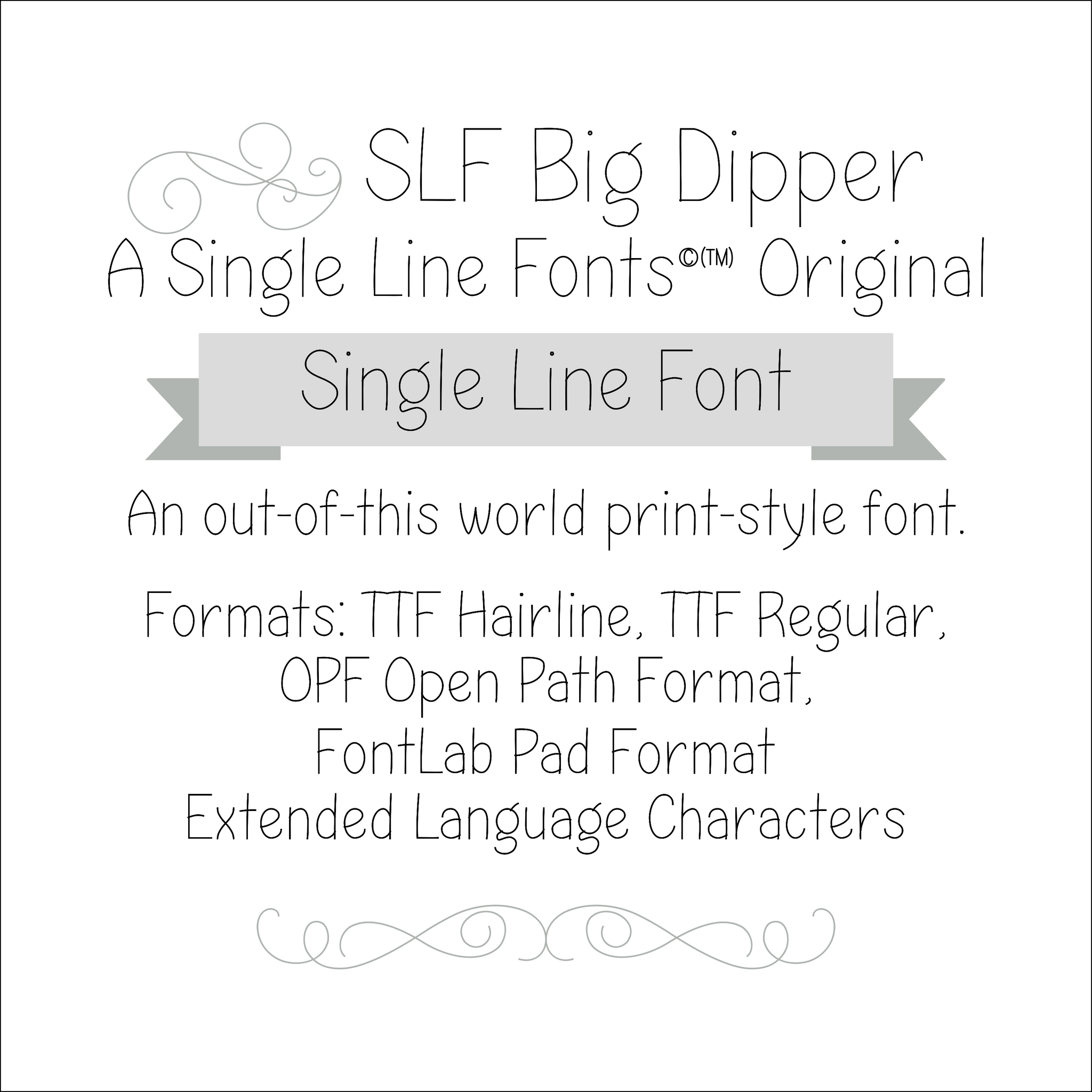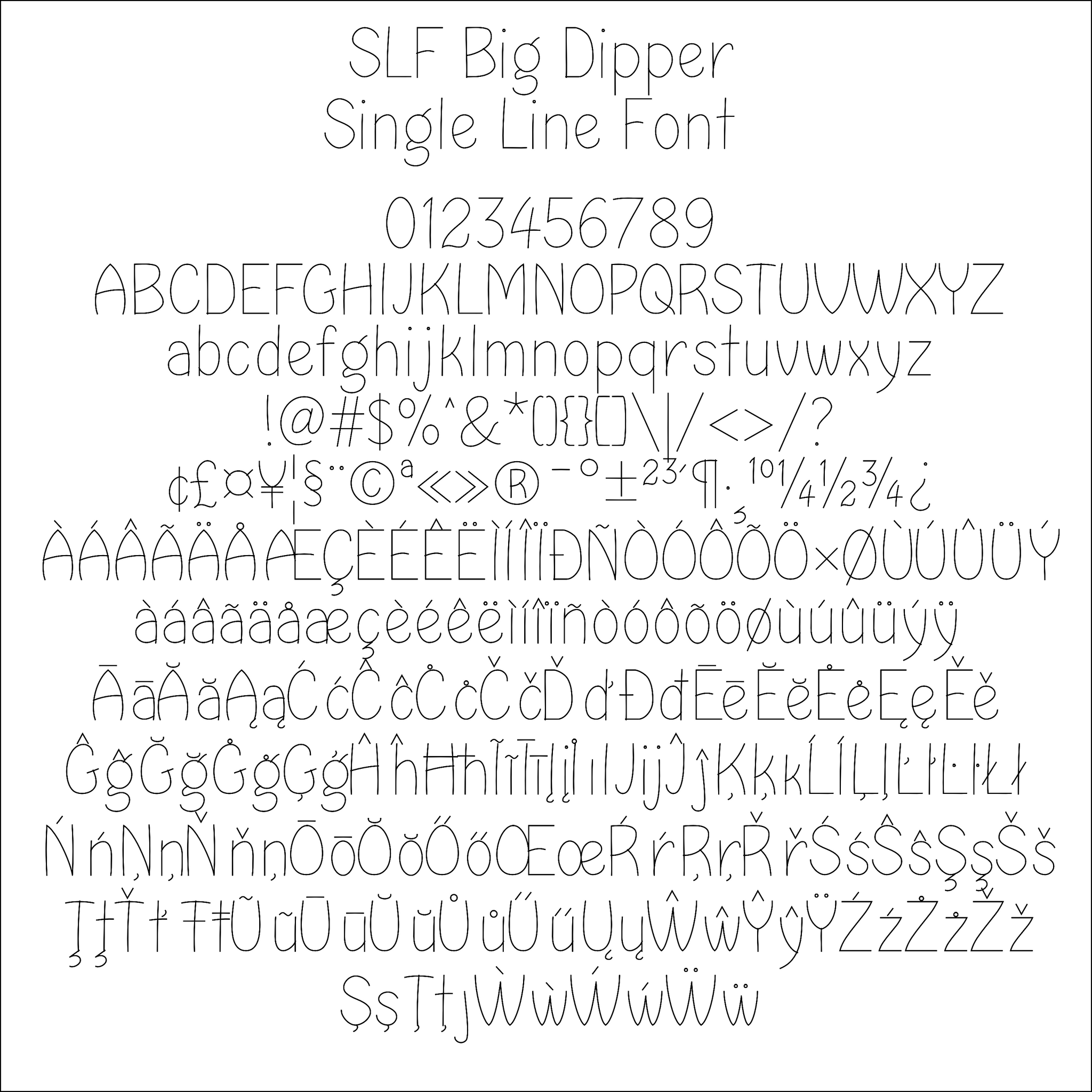
Single Line Font "SLF Big Dipper"
SLF Big Dipper: Your Path to Precision and Style
Introducing SLF Big Dipper, a stellar addition to your design toolkit. This single line font is perfect for a variety of creative projects, ensuring clean, precise lines and a professional finish every time. Whether you're engraving, plotting, or crafting, SLF Big Dipper is designed to meet your needs with exceptional versatility.
Perfect For:
• Engraving and Etching: Create intricate and detailed designs on various materials.
• Laser Cutting: Achieve precise cuts for detailed projects.
• Plotting: Produce high-quality graphics with smooth, continuous lines.
• CNC Machining: Enhance your projects with finely detailed text and patterns.
• Digital Crafting: Ideal for custom signage, invitations, and more.
• Calligraphy and Lettering: Perfect for modern calligraphy, offering a sleek, professional look.